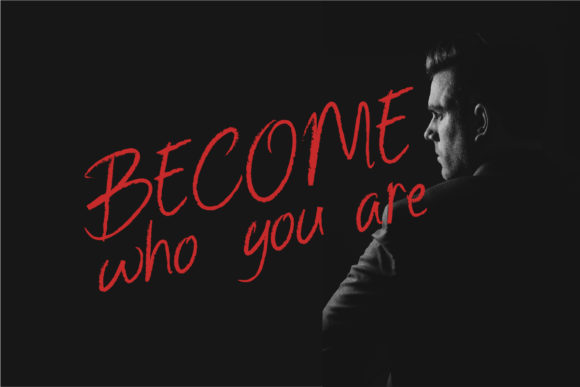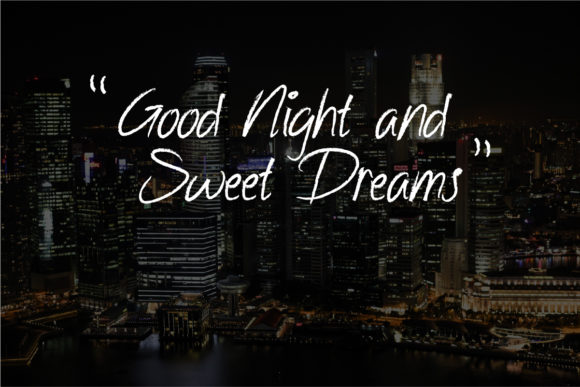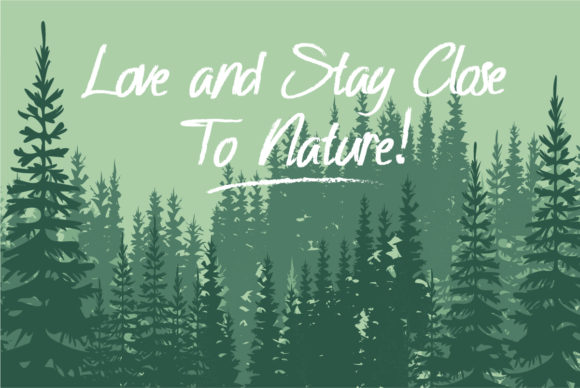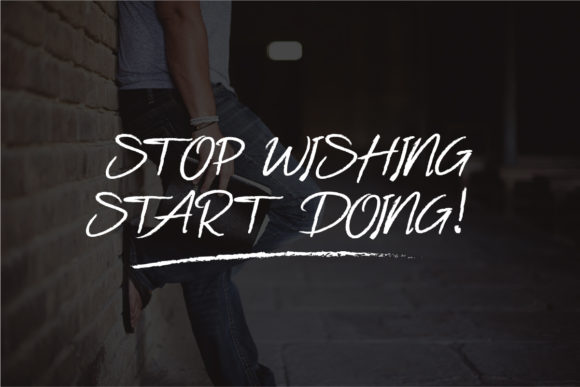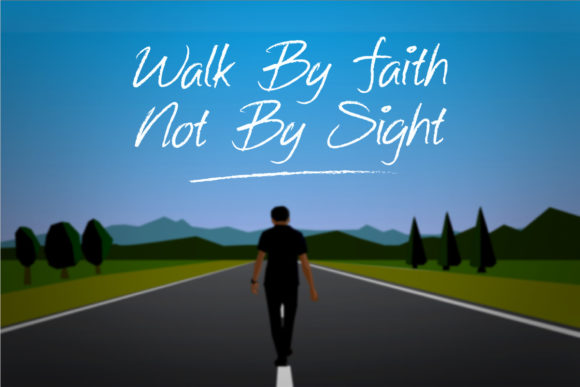
Black Chalk Font
About Black Chalk Font
Black Chalk is textured brush font, inspired by the chalk. This unique script will add a serious and sincere feel to any design idea!